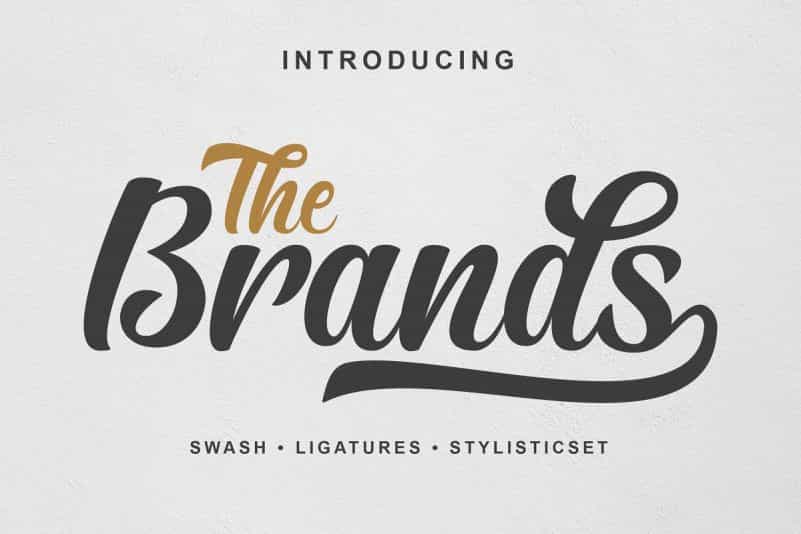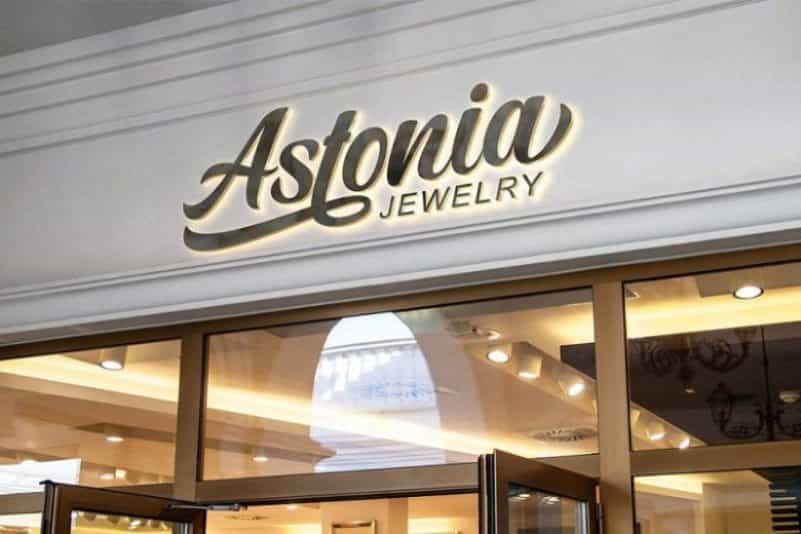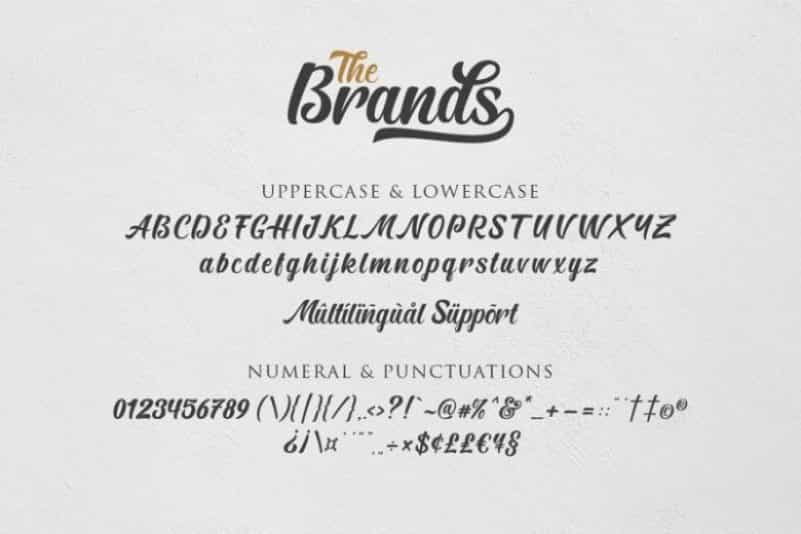
Discover The Brands Script Font, part of the Brush Calligraphy collection—a versatile and unique font perfect for adding a personal touch to your projects. Download it for free and enjoy crafting designs with style, from invitations to social media posts. This font is available exclusively for personal use, giving you the freedom to create without limits. Unlock your creativity with The Brands Script Font today!
Brands Font – This font can solve your requirement of a good calligraphic typeface for your project. It’s fluent and aesthetic with these swashes. One can use it for a variety of things. for instance, the title, signature, logo, wedding invitations, letterhead, signage, labels, newsletters, posters, badges, and many others.